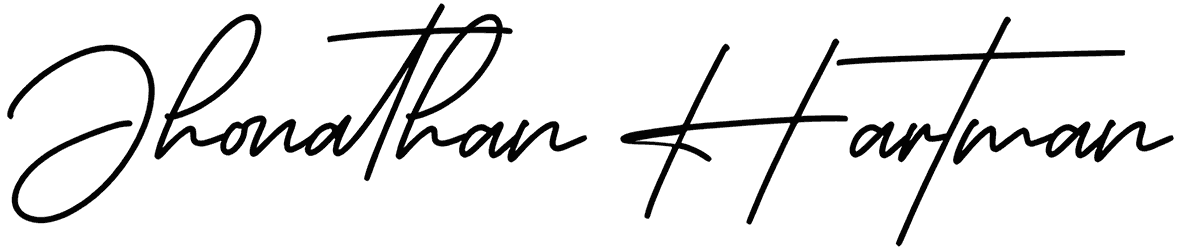
Jhonathan Hartman Font
The Jhonathan Hartman is an astonishing font that surprises you at first glimpse. Although this autograph font is a bit unreadable, it has a handsome personality that seems charismatic and memorable.
The Jhonathan Hartman font is offered in two versions, and you may use it for various cases, such as magazine covers, luxury logos, and advertisements. This handwritten font’s letters are thin with soft edges and have a minimal, stylish form. So give it a try to catch your audience’s eye.